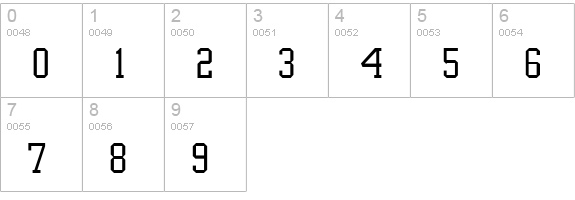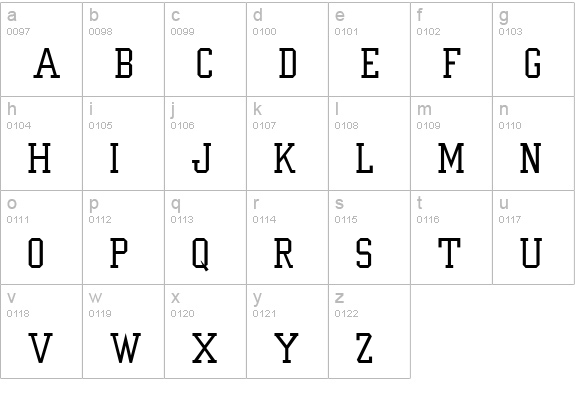
CgYearbookFiller font is a charming and nostalgic typeface that evokes memories of school yearbooks and handwritten notes. Its classic and timeless design makes it perfect for adding a touch of vintage flair to your projects. With its clean lines and elegant curves, CgYearbookFiller font is versatile and easy to read, making it ideal for a wide range of design applications. Best of all, CgYearbookFiller font is available for free download at FontsMarket.com. Whether you're creating invitations, posters, or social media graphics, this font is sure to add a touch of old-school charm to your designs. Don't miss out on this wonderful opportunity to enhance your projects with the delightful CgYearbookFiller font - download it for free today!